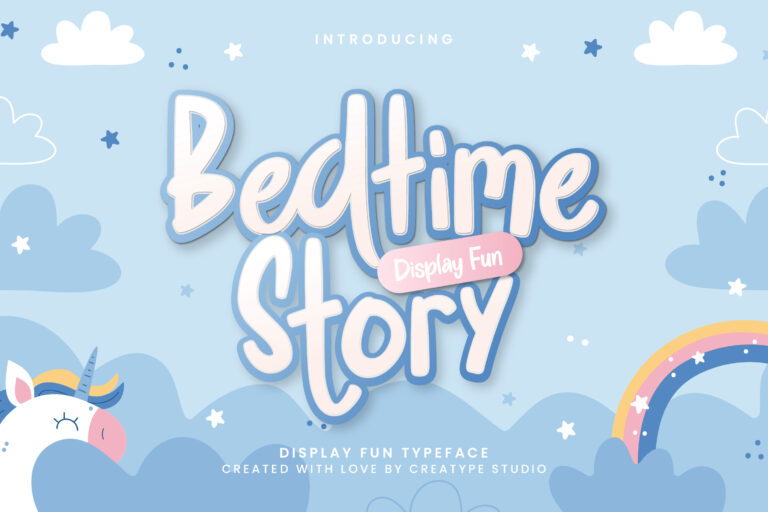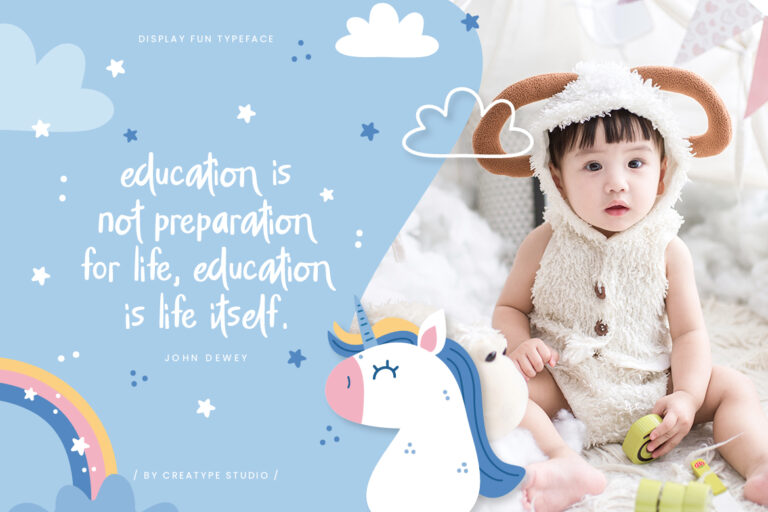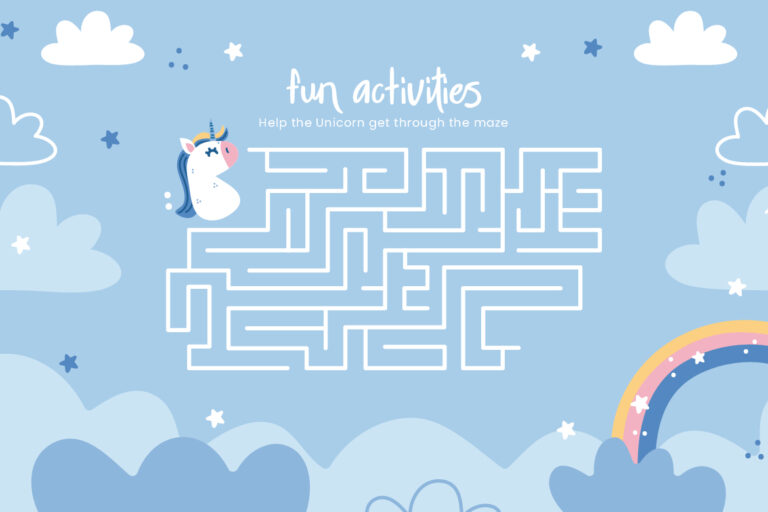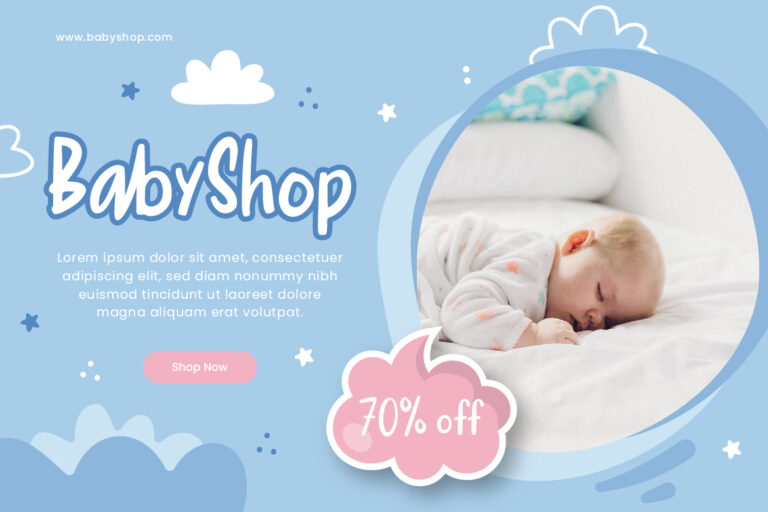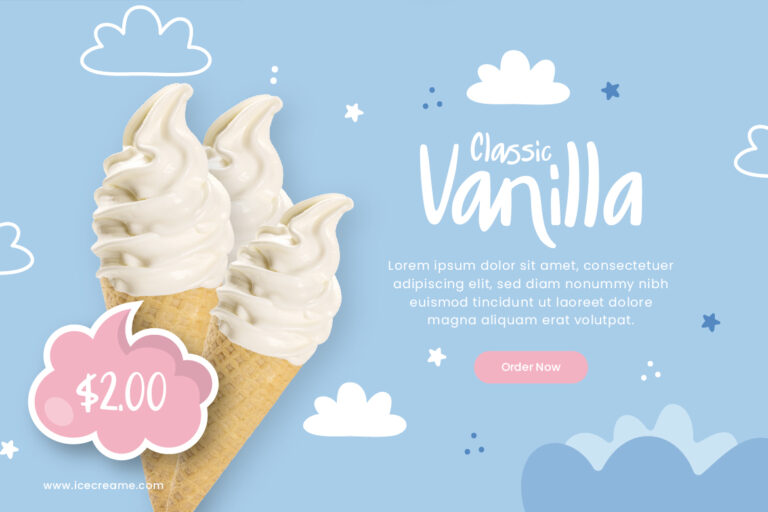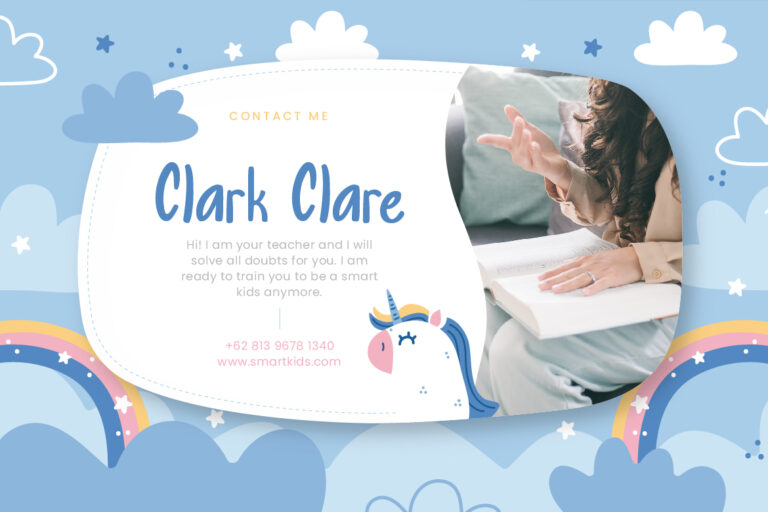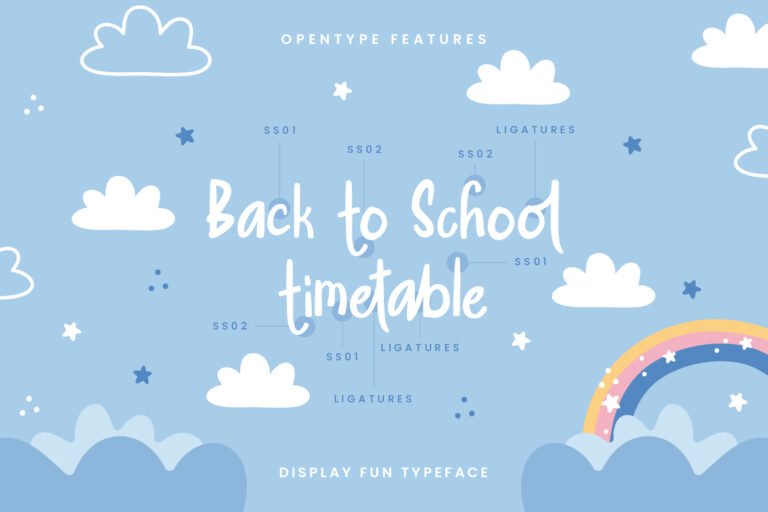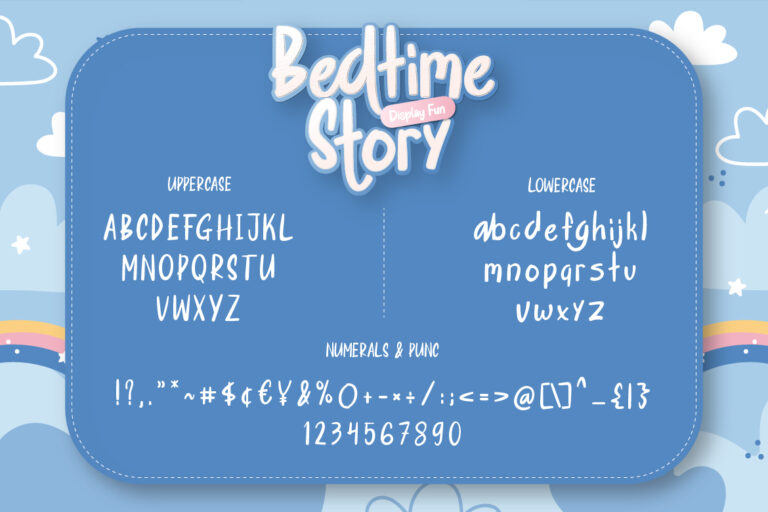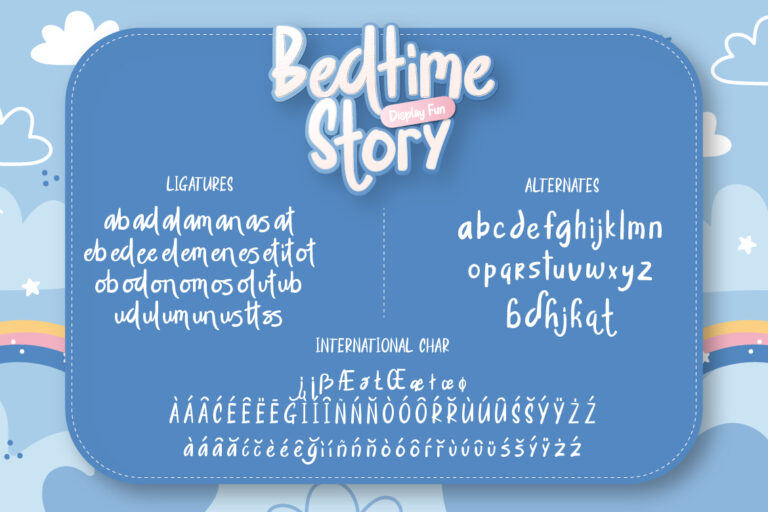
Bedtime Story Display Fun
Bedtime Story is a fun display typeface. This font has a cute and fun look. There are 32 ligatures and alternates that can make your project even more interesting, of course.
Bedtime Story Display Fun is perfect for branding projects, logo, wedding designs, social media posts, advertisements, product packaging, product designs, label, photography, watermark, invitation, stationery and any projects that need handwriting taste.